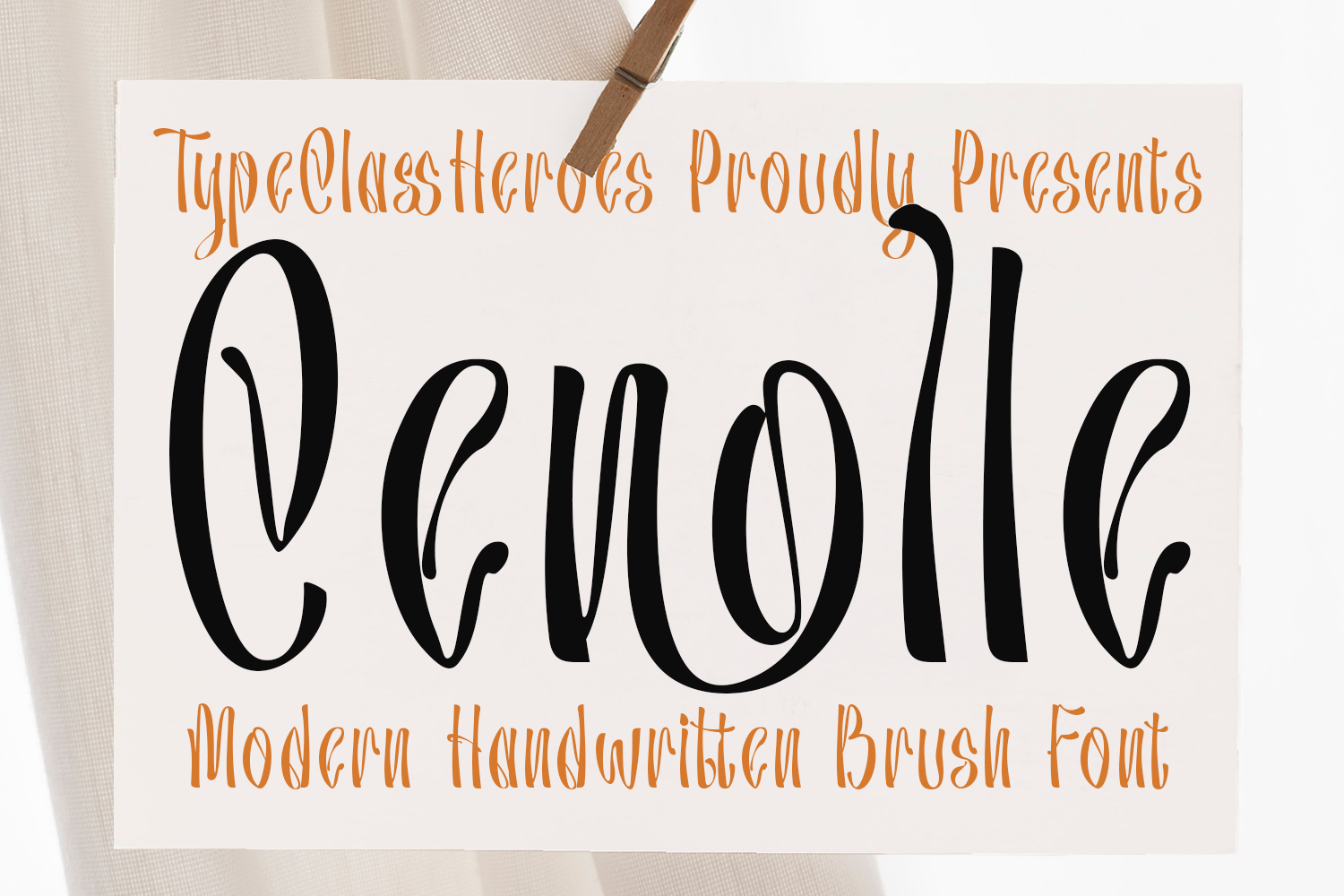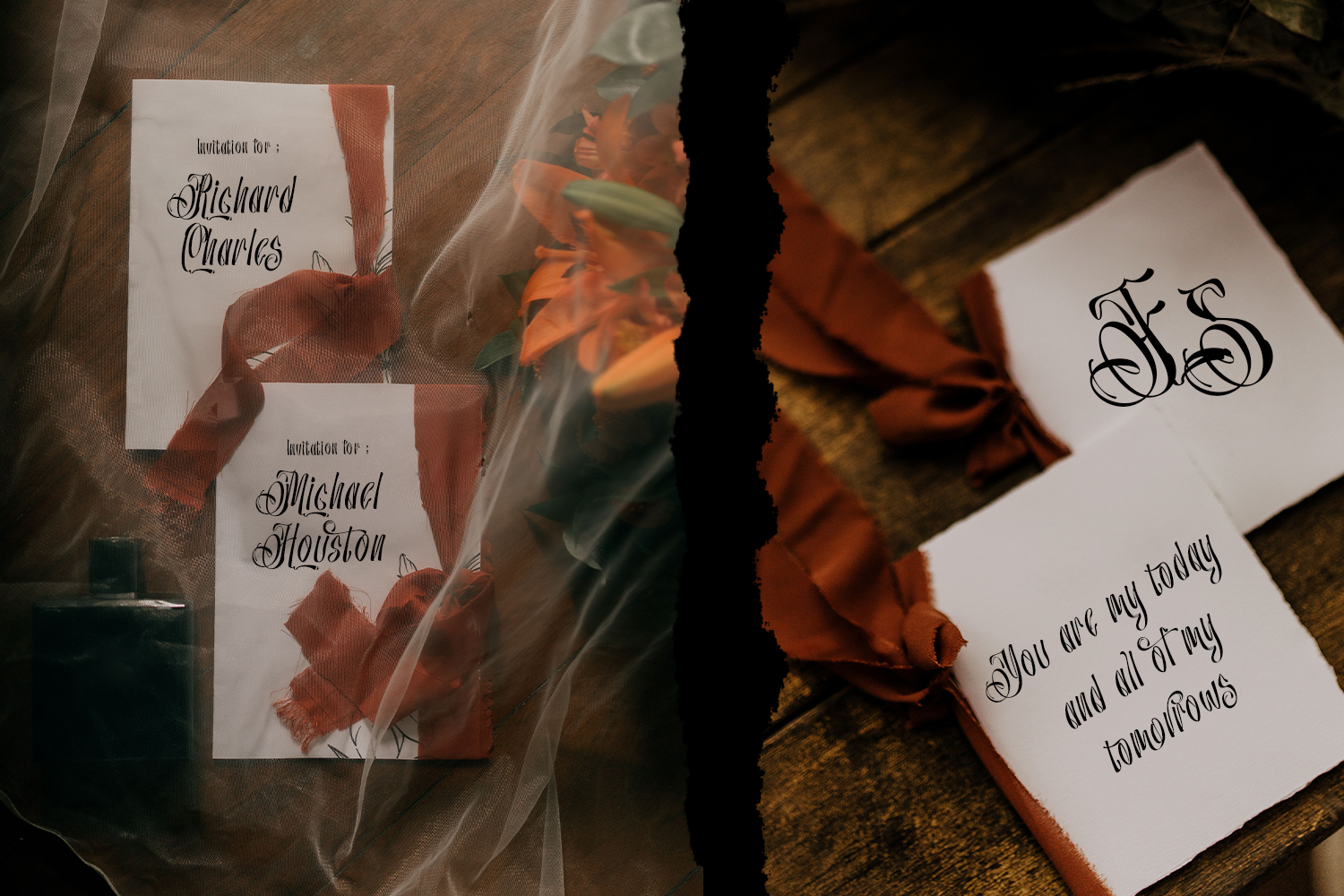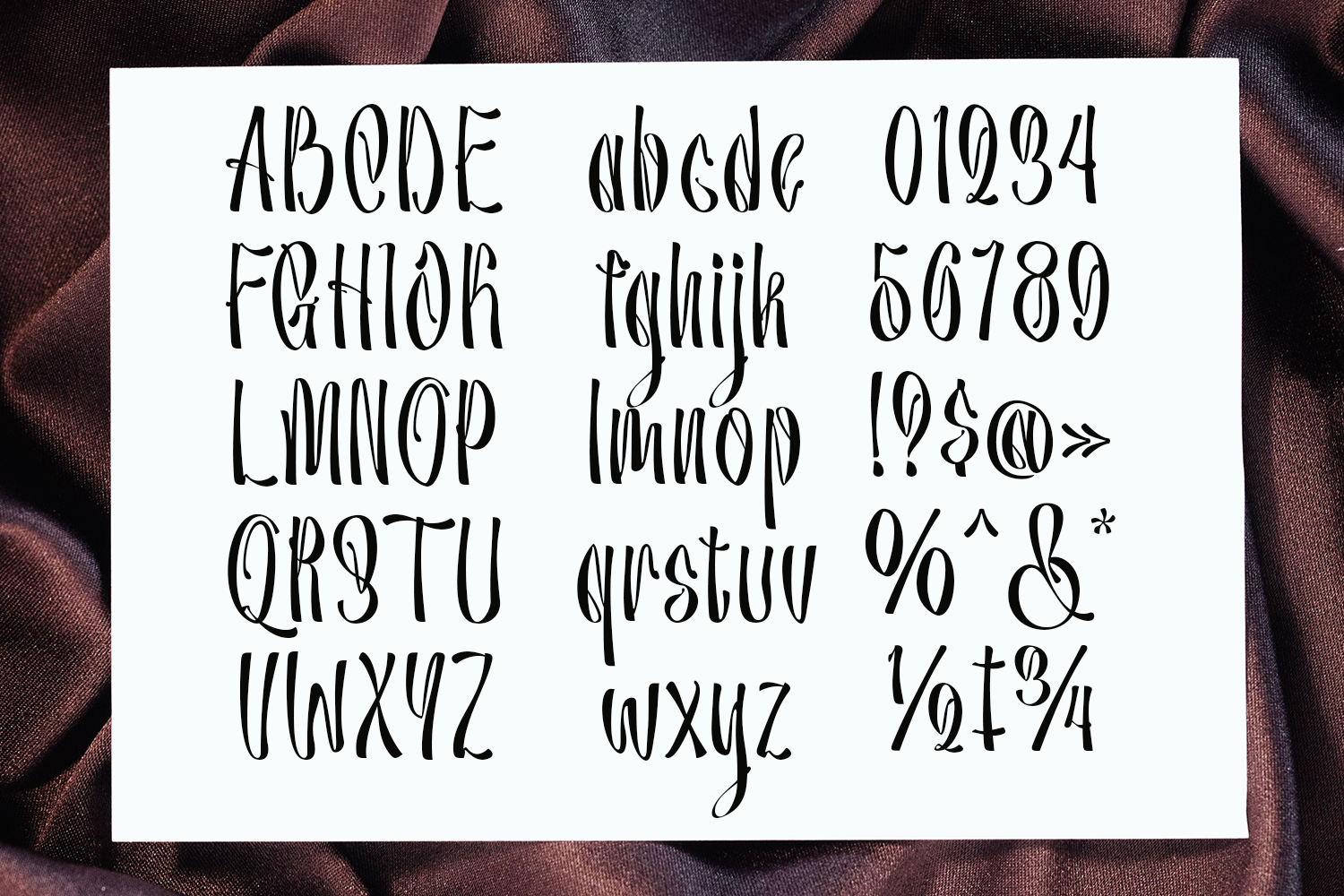
Introducing Cenolle, this is a luxurious handwritten brush font characterized by an elegant, opulent style. Its defining features include contrasting thick and thin strokes, flowing curves, and long, decorative swashes and flourishes. The letterforms evoke a vintage, romantic, feminine, and warm feel, making them an ideal choice for designs requiring an elegant and sophisticated look. It is well suited for premium logos and branding, wedding invitations and stationery, luxury product packaging, beauty branding, posters, headlines, and more.